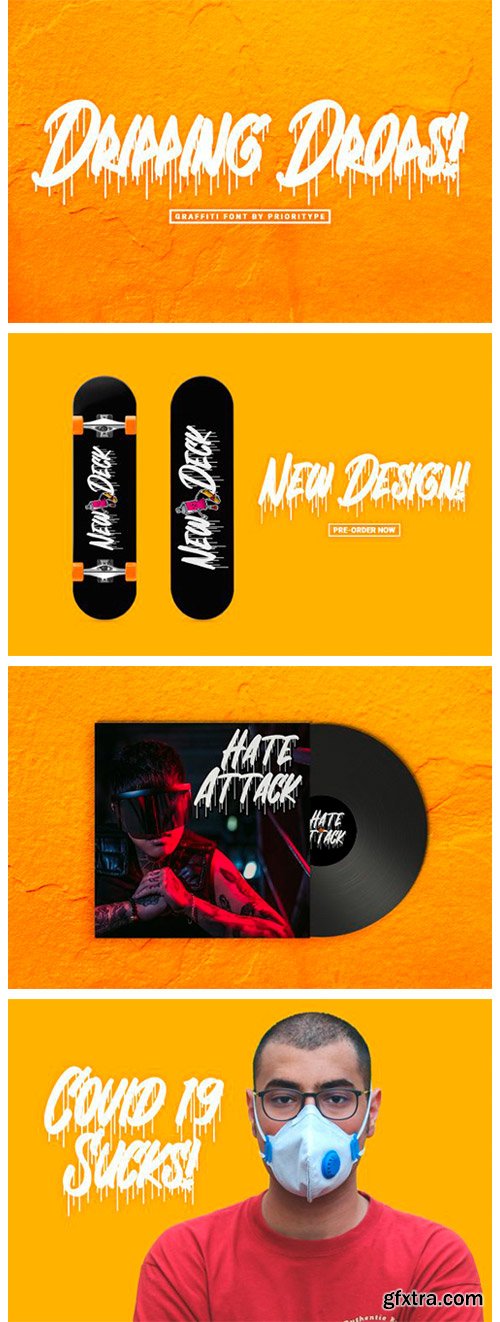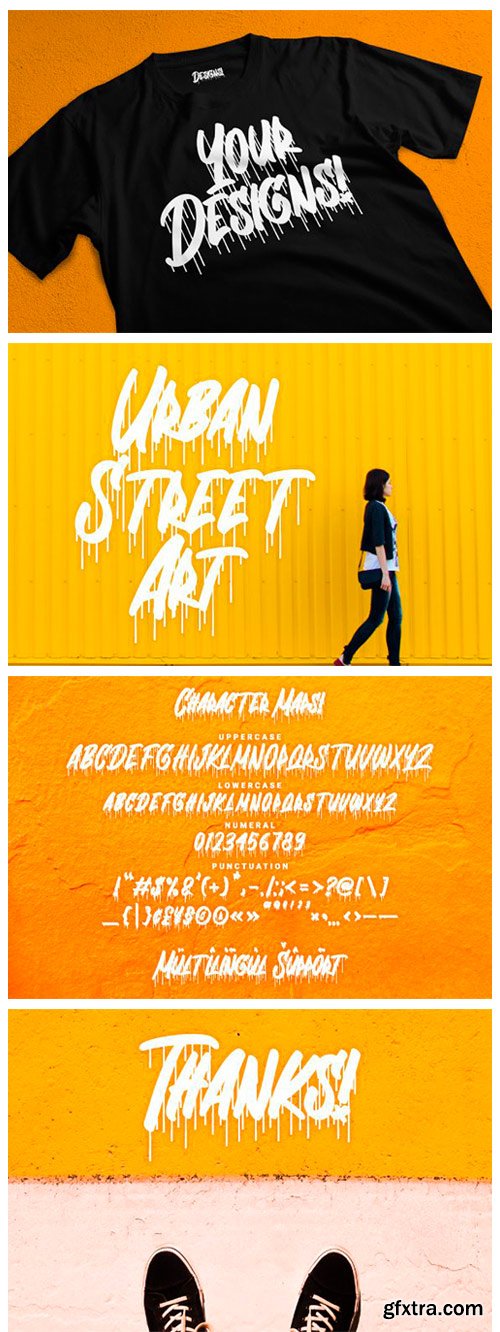
Dripping Drops Font
Dripping Drops is a cool and urban styled display font. It can be used for various purposes such as logos, wedding invitations, headings, t-shirts, letterhead, signage, labels, news, posters, badges and so much more.